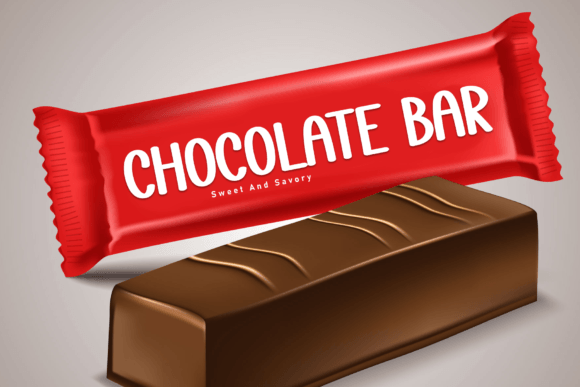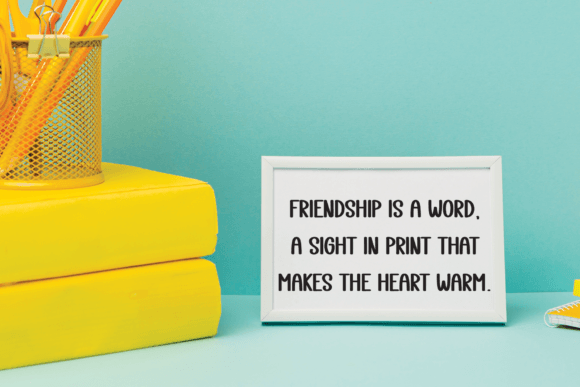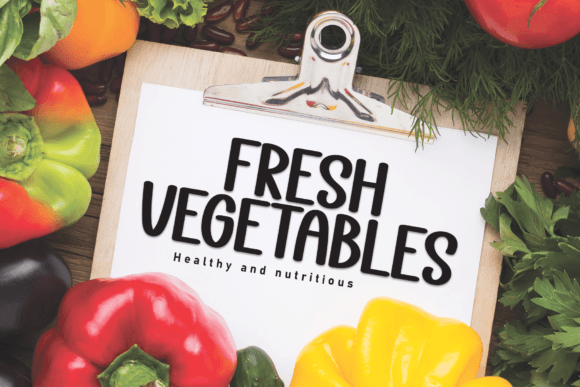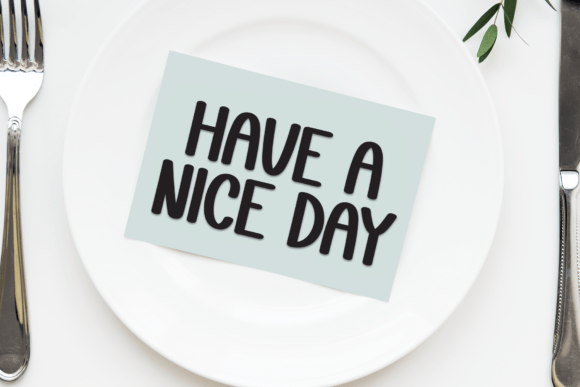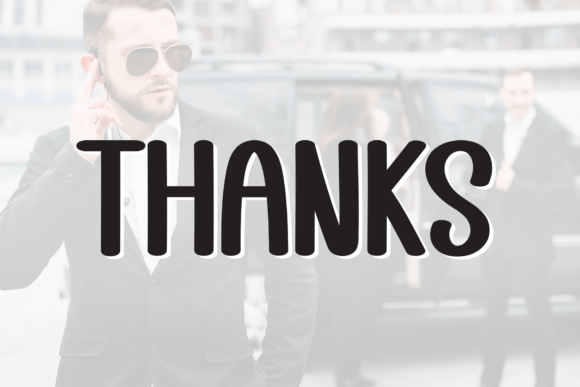
Introducing Bodyguard Font: The Ultimate Delight for Designers and Crafters
Welcome to the world of “Bodyguard,” a delightful and friendly font characterized by its whimsically handwritten flair. Graced with an adorable and jovially fun demeanor, this font breathes life into any project it embellishes. It is a dream for crafting wedding invitations radiating with romantic charm, or fashioning delightful cards resonating with heartwarming sentiments.
The Charm of Bodyguard Font
The Bodyguard font is a true gem in the world of typography. Its unique, handwritten style is instantly recognizable and brings a dash of fun to any design. The font’s effervescent style dances across the page, making it perfect for projects that require a playful touch. Whether you’re a designer, crafter, or DIY enthusiast, Bodyguard font is sure to become your new favorite companion.
Bodyguard font is a match made in heaven for wedding invitations, cards, and other paper crafts. Its romantic and whimsical flair adds a touch of magic to any project, making it perfect for:
- Wedding invitations: Add a touch of romance and whimsy to your wedding invites with Bodyguard font.
- Birthday cards: Create delightful birthday cards that will make the recipient feel special.
- Thank you cards: Express your gratitude with a personal touch using Bodyguard font.
Unleash Your Creativity with Bodyguard Font
Bodyguard font is not just a font, it’s a creative tool that can help you unleash your imagination. With its playful and whimsical style, you can create a wide range of projects, from:
- Paper crafts: Create unique and personalized paper crafts, such as cards, gift tags, and scrapbook pages.
- Digital designs: Use Bodyguard font to create stunning digital designs, such as social media graphics, blog headers, and email newsletters.
- Signage: Add a touch of personality to your signage with Bodyguard font.
Why Choose Bodyguard Font?
So, why choose Bodyguard font for your next project? Here are just a few reasons:
- Unique style: Bodyguard font has a unique and instantly recognizable style that will set your project apart.
- Versatile: Bodyguard font can be used for a wide range of projects, from paper crafts to digital designs.
Get Ready to Unleash a Wave of Joy with “Sweet Scribbles”
Bodyguard font is part of the “Sweet Scribbles” collection, a delightful symphony of creativity that will introduce a new level of fun and playfulness to your designs. With Bodyguard font, you’ll be able to:
- Create unique and personalized projects that will make your audience smile.
- Add a touch of whimsy and romance to your designs.
- Unleash your creativity and experiment with new and exciting design ideas.
In conclusion, Bodyguard font is a delightful and friendly font that is sure to bring a wave of joy to your designs. With its unique and whimsically handwritten flair, it’s perfect for wedding invitations, cards, and other paper crafts. Whether you’re a designer, crafter, or DIY enthusiast, Bodyguard font is a must-have in your font collection. So, what are you waiting for? Unleash your creativity and get ready to make your designs shine with Bodyguard font!